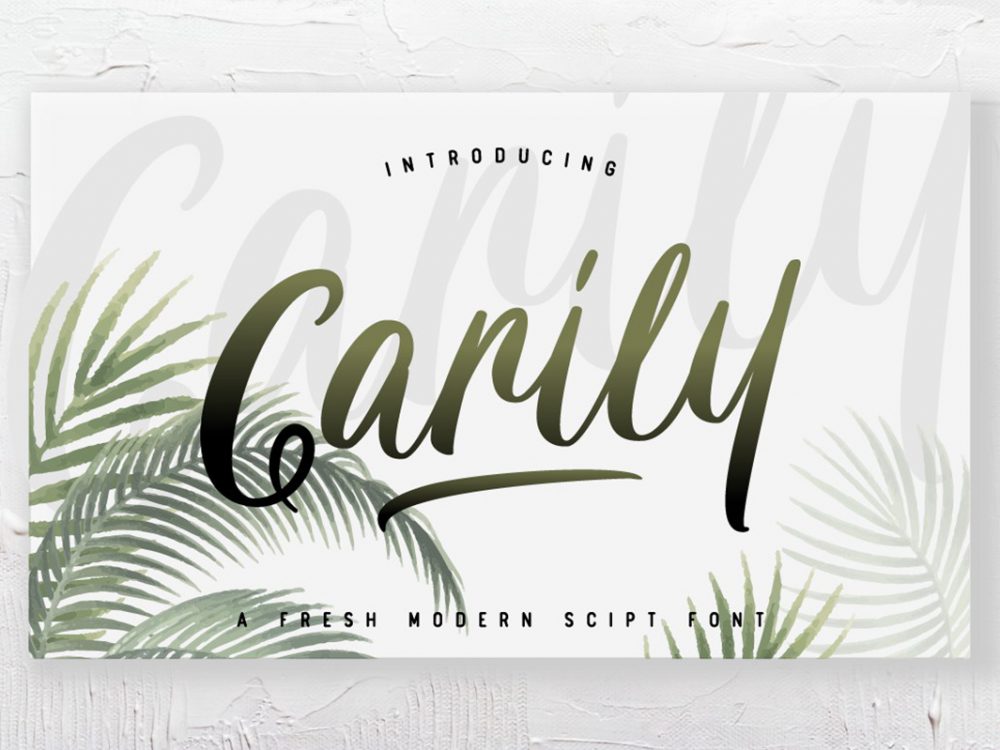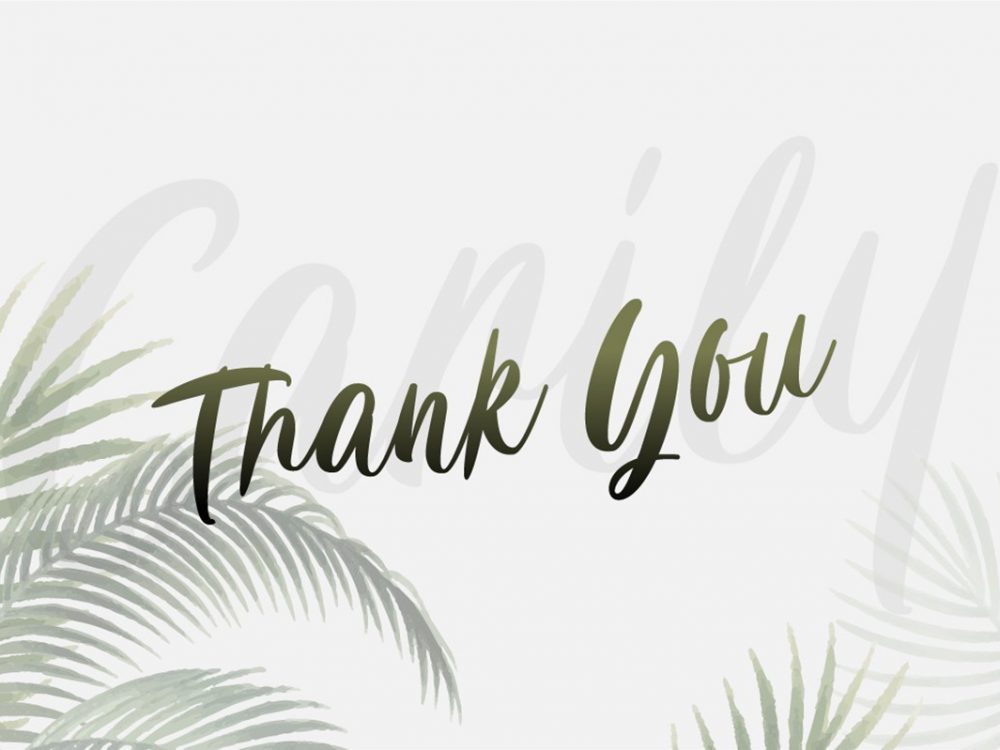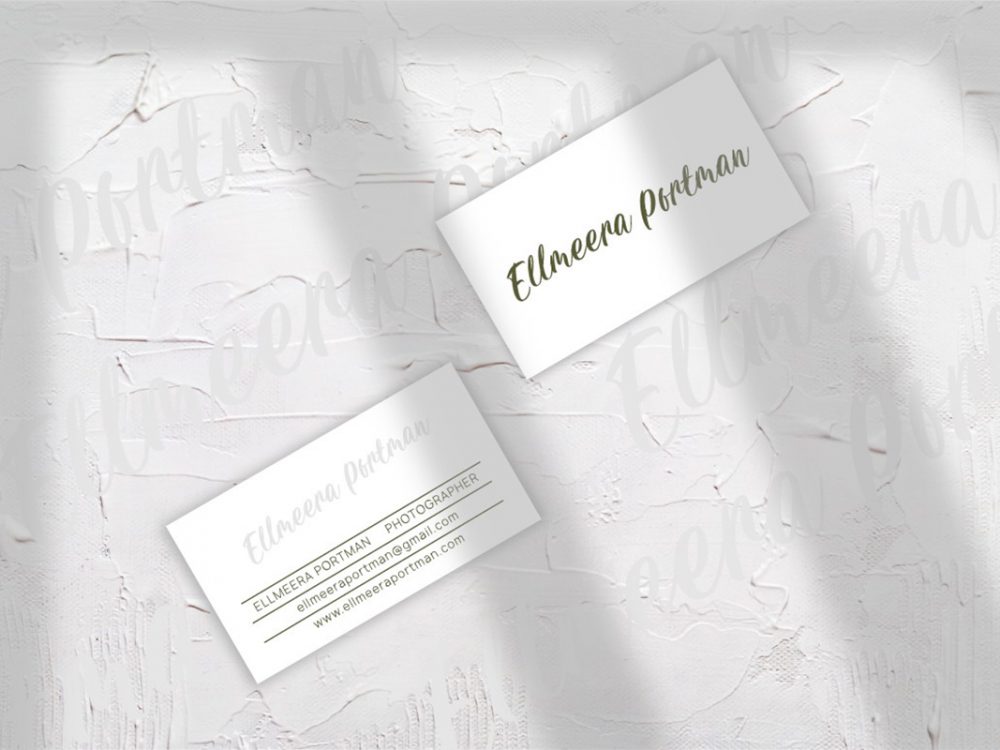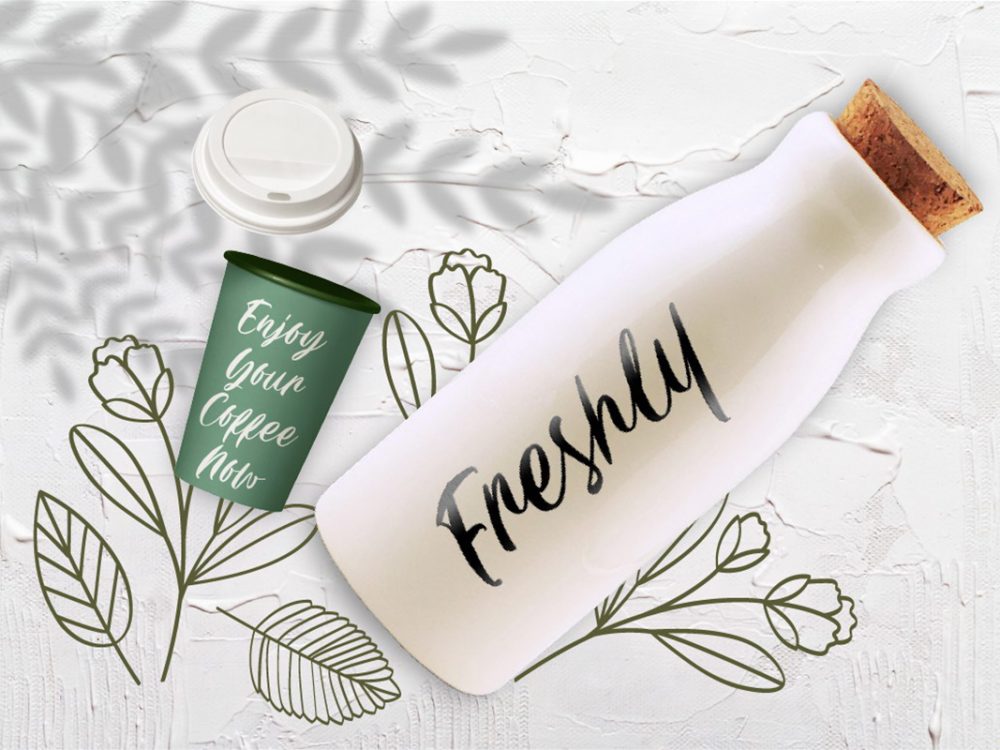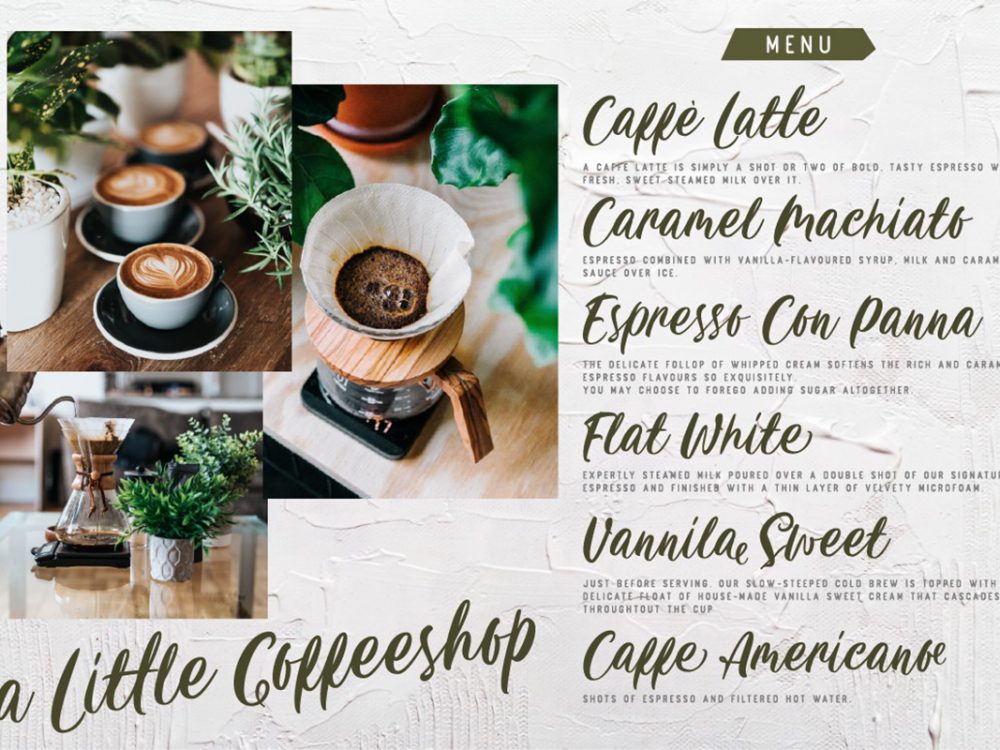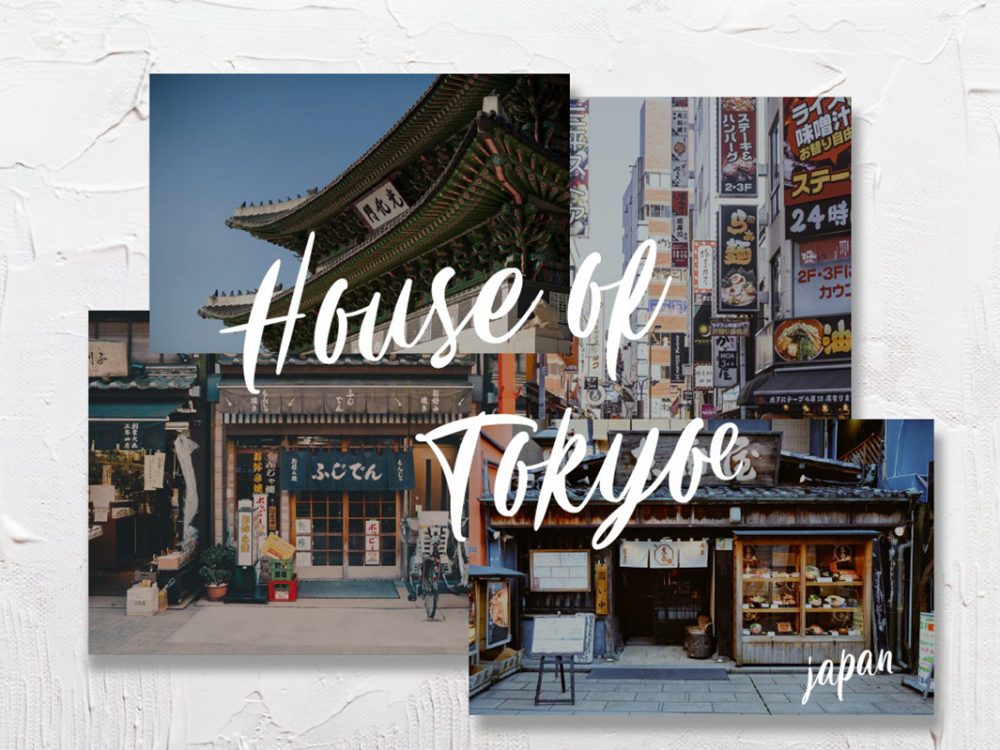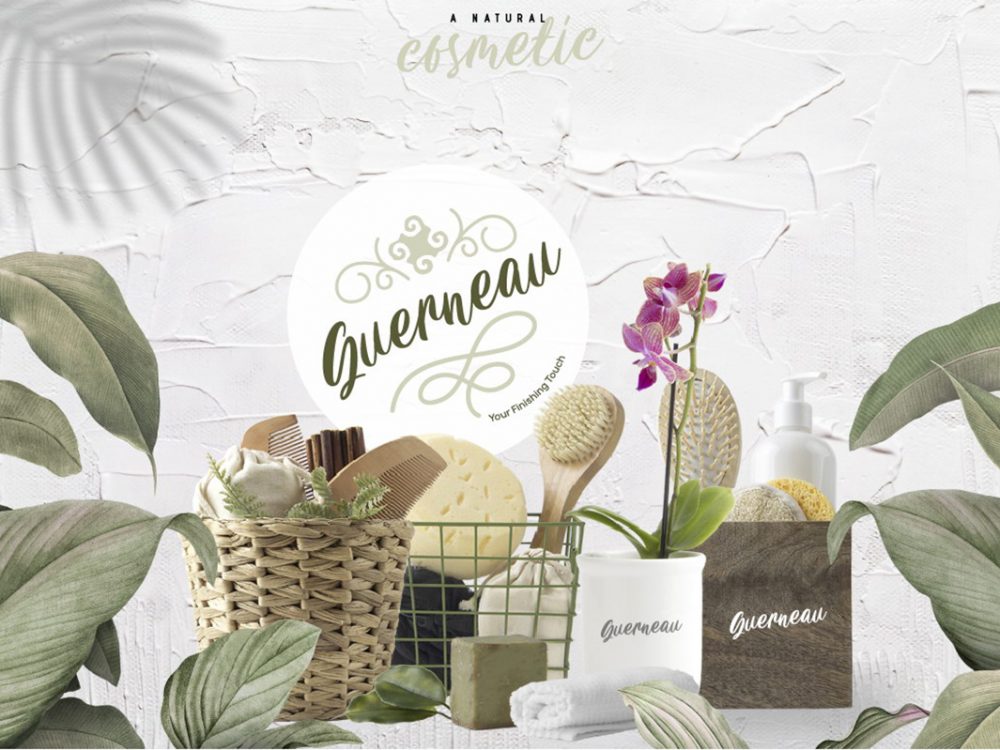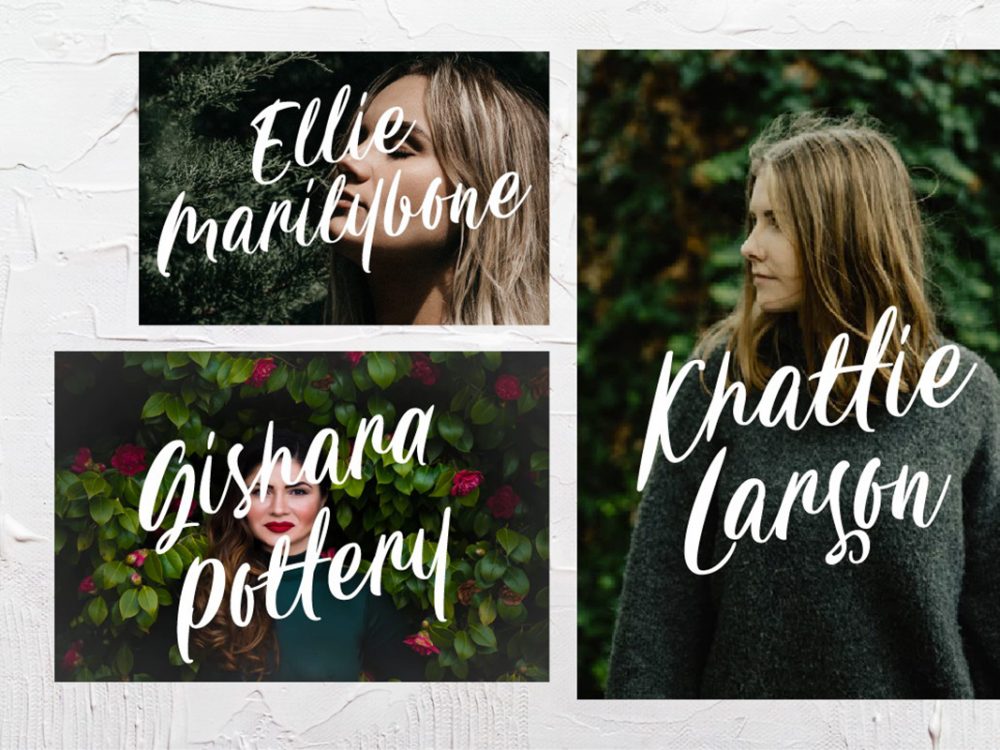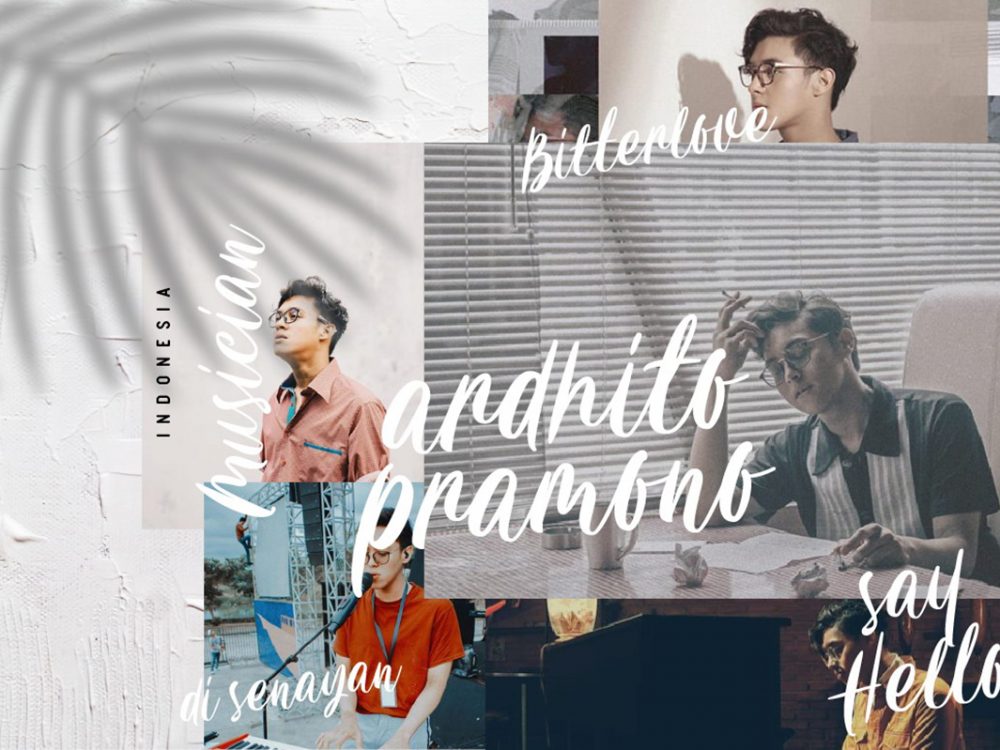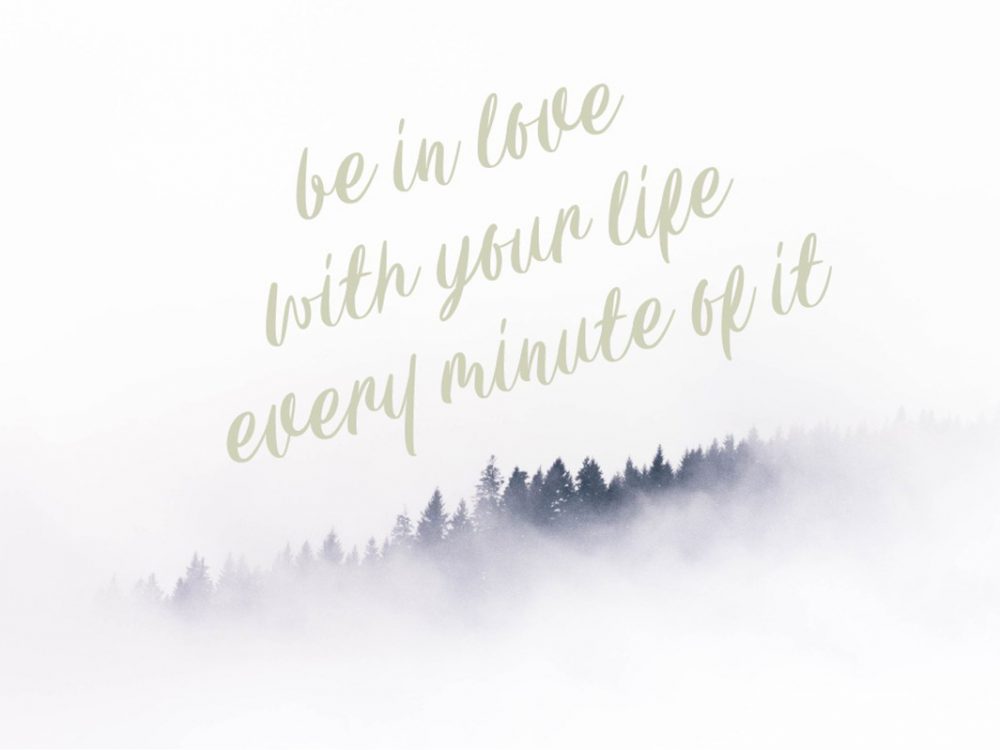
Carily Brush Font
Carily Brush Font is a modern interesting handwritten typeface imitating writing with a brush and inspired by handwriting. This font will help you create memorable design projects such as posters, wedding invitations, cards, branding, flyers, prints, and more. Please purchase the full version of the font for commercial use.